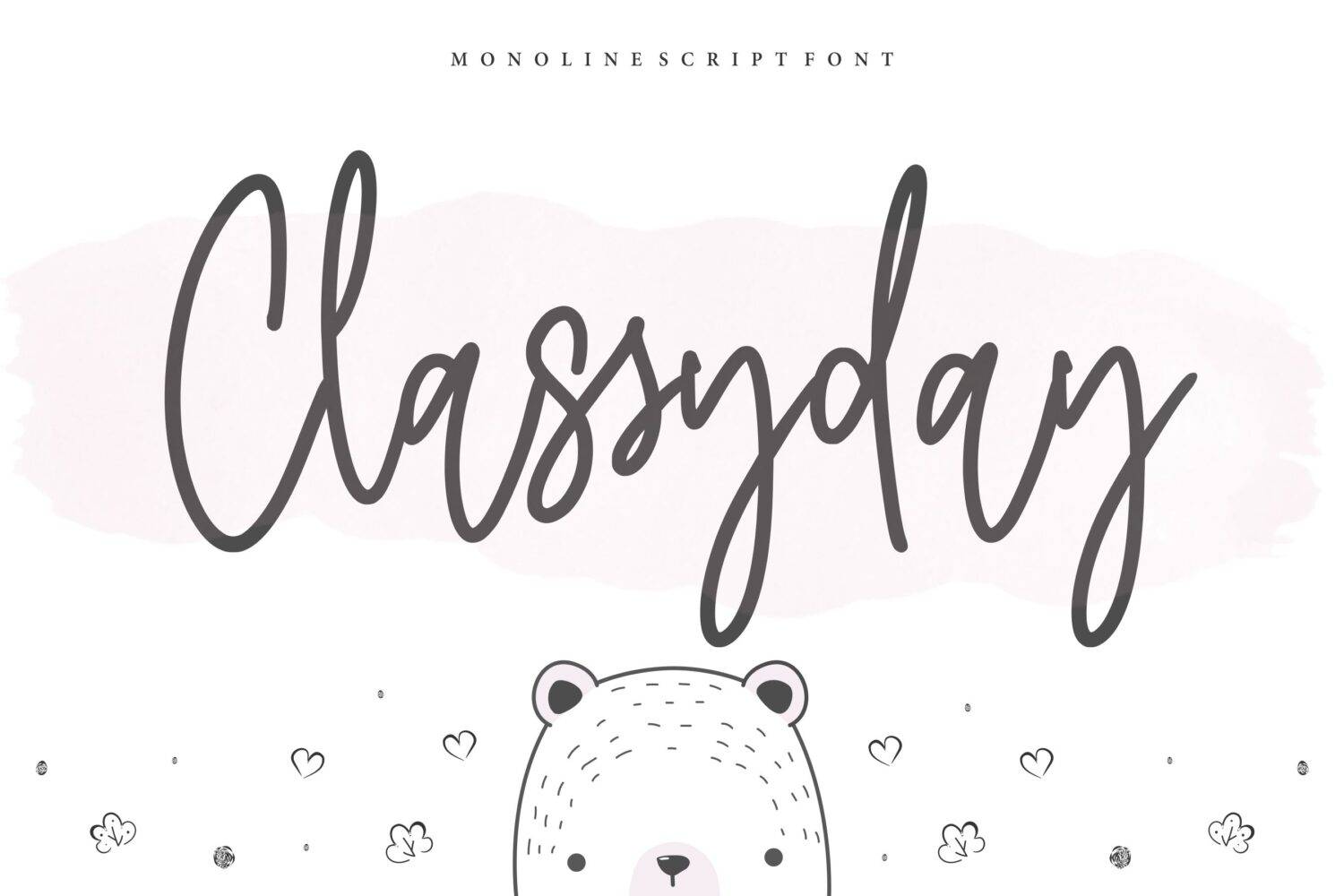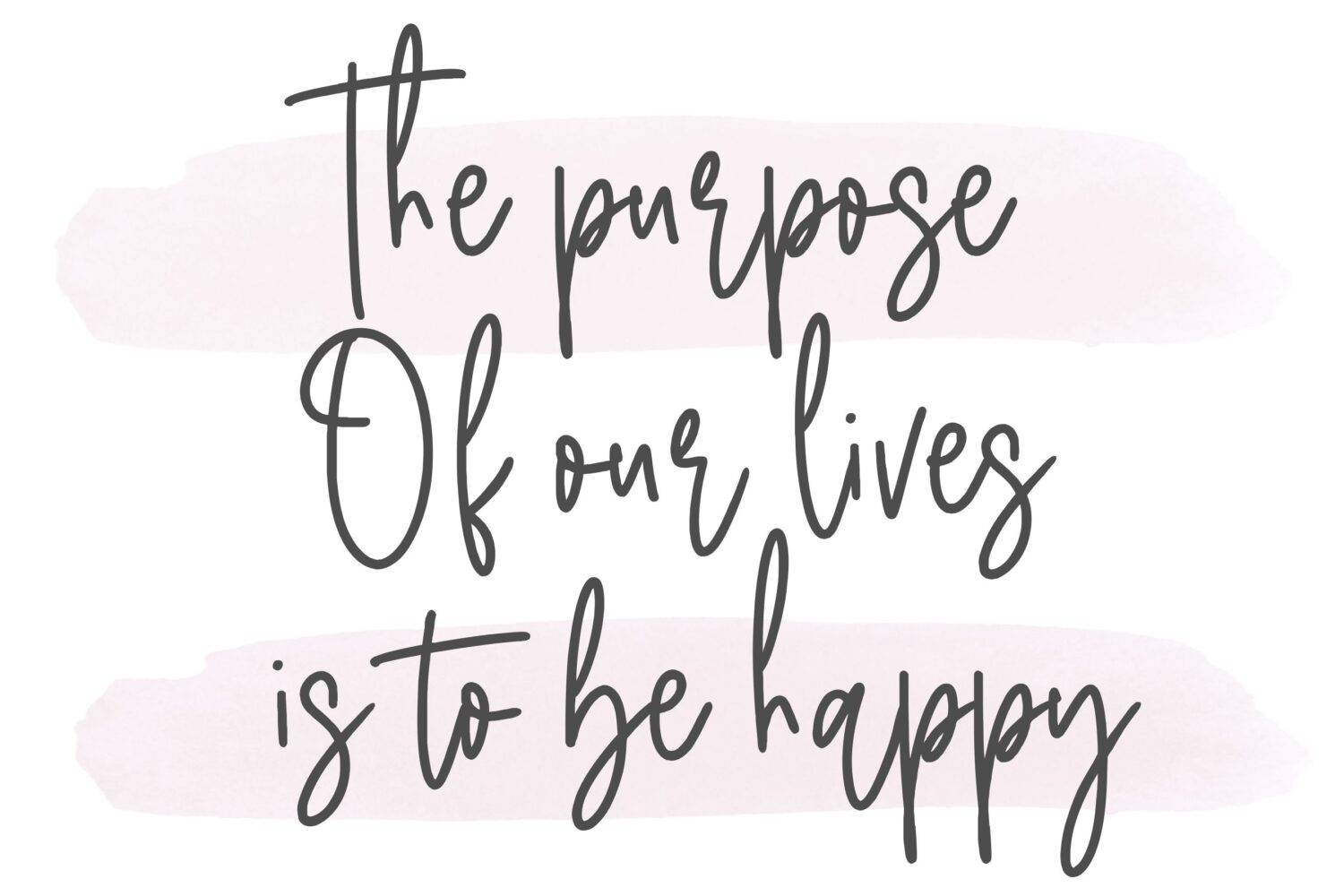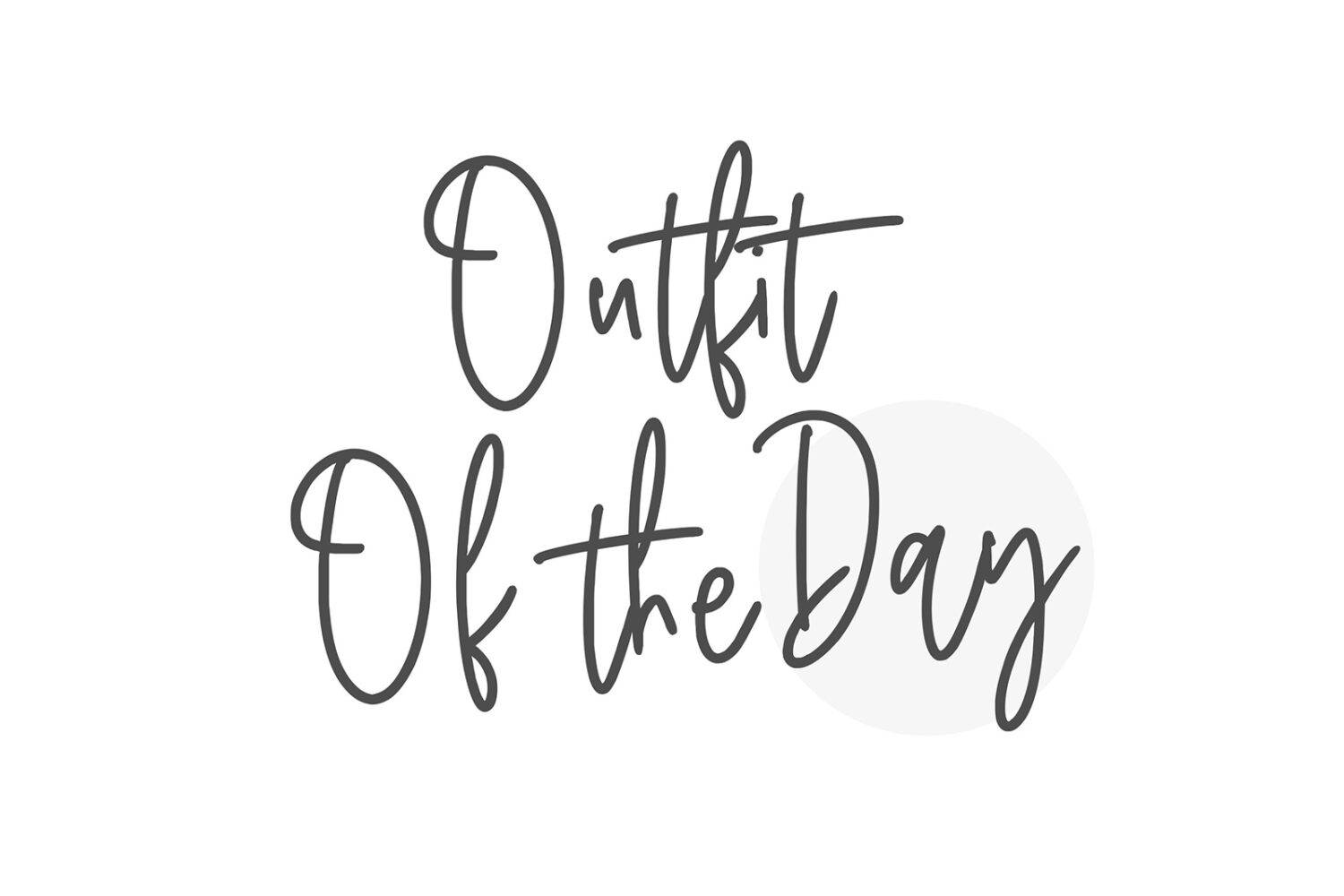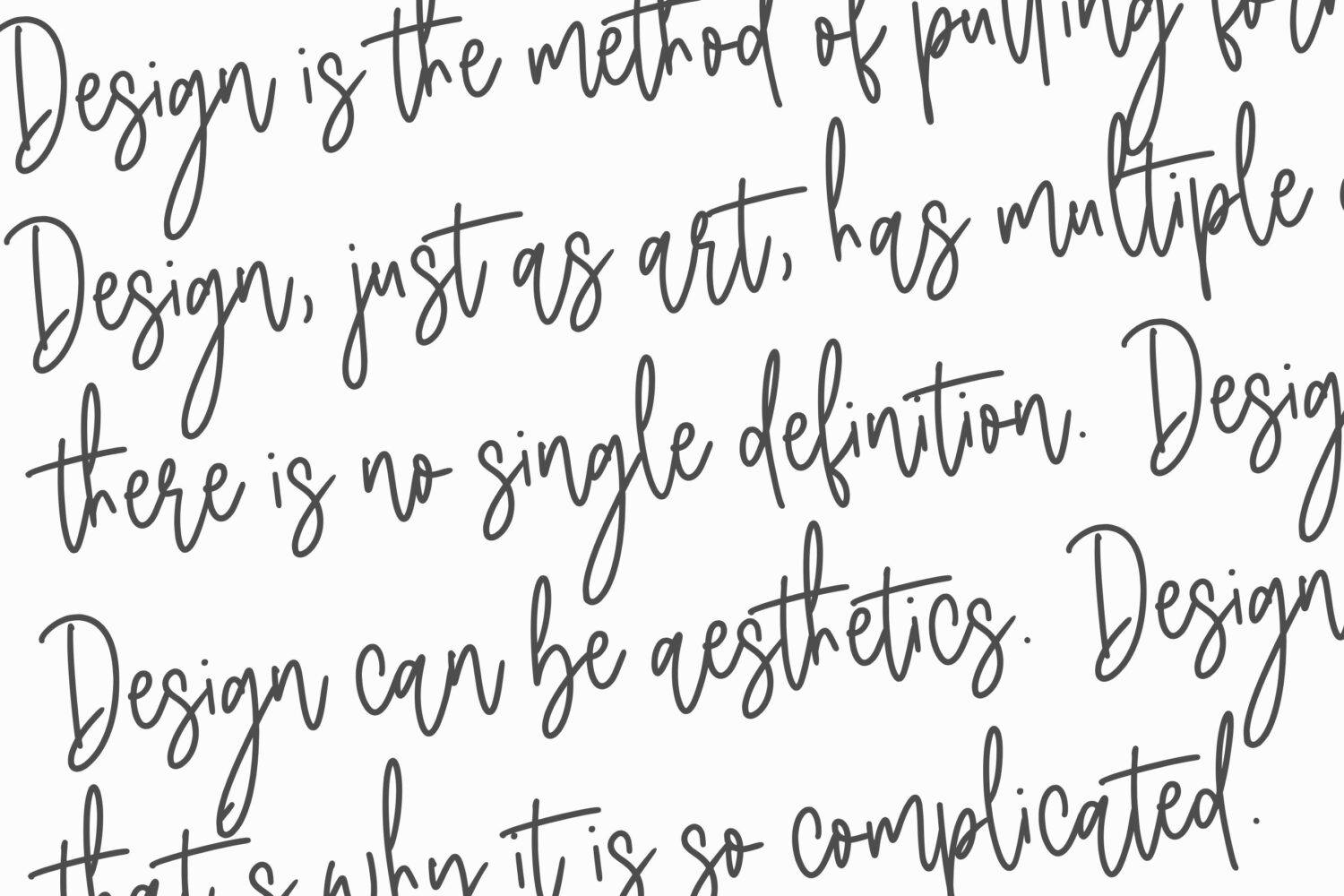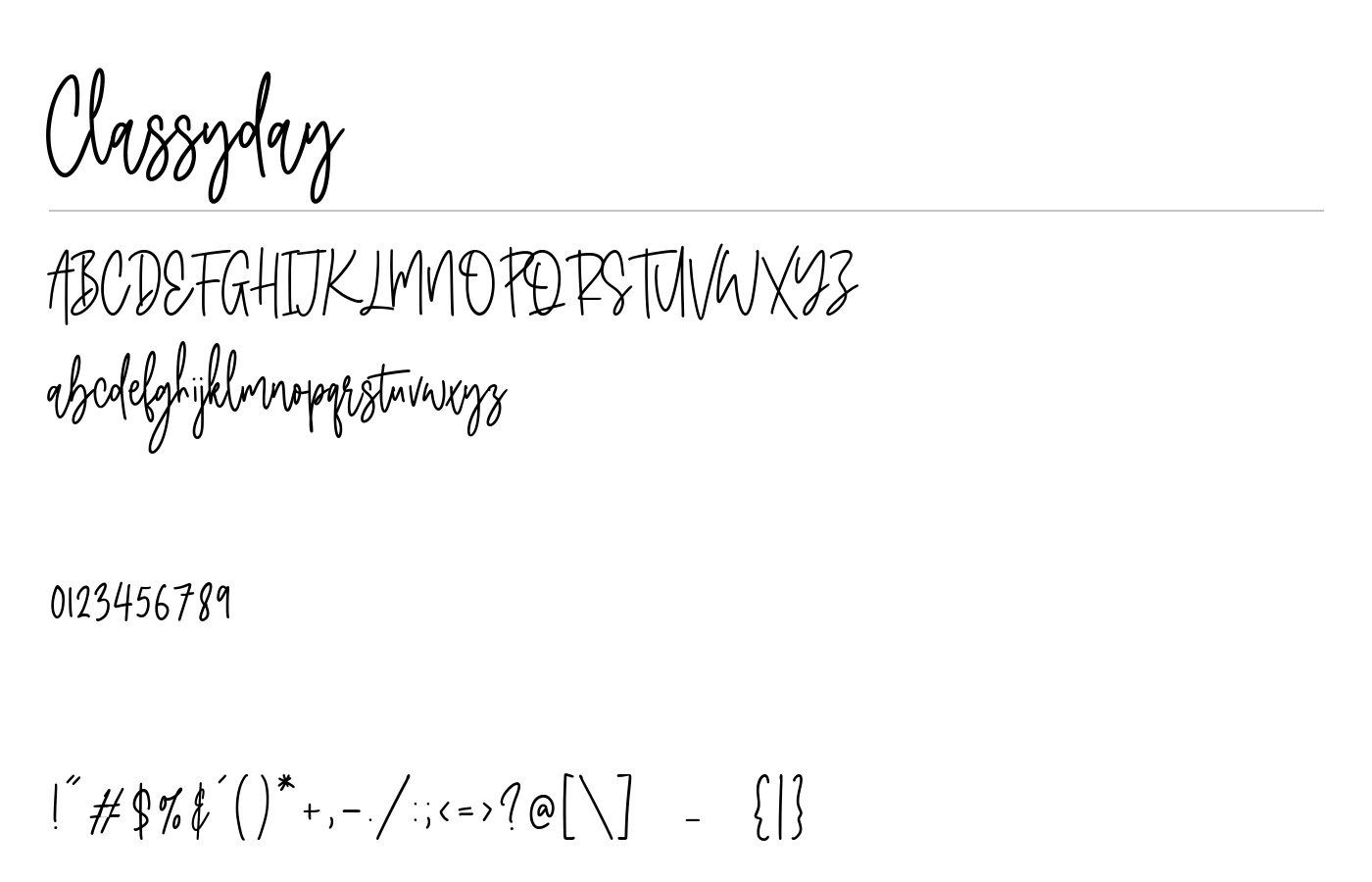
Classyday Monoline Script is a delicate and elegant handwritten font featuring thin, consistent strokes that give it a light and airy feel. Its tall, narrow letterforms with smooth curves and a casual yet refined style make it perfect for adding a personal, sophisticated touch to branding, invitations, and creative projects. This font works especially well for designs that aim to convey warmth, elegance, and a modern handwritten charm.
Classyday Monoline Script Font
About Classyday Monoline Script Font